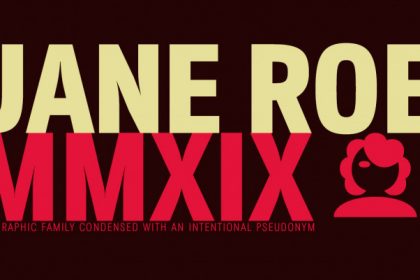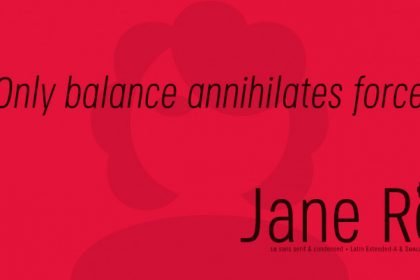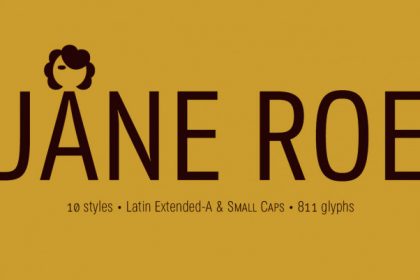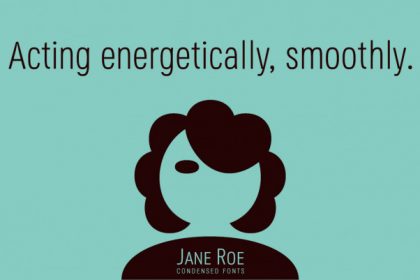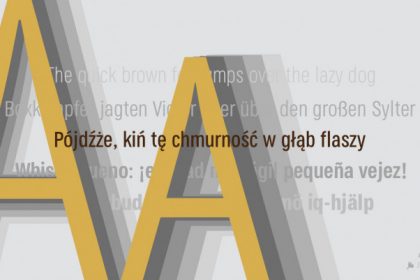
JANE ROE Sans & Condensed Fonts
Jane Roe is a family of 10 Sans Serif condensed fonts of geometric construction and neo-Gothic style, a friendly typography with maximum readability, specially drawn for the composition of texts of any size for both printing and screen, signage or headlines and where you need savings in horizontal space.
This typeface contrasts its neutral aspect with the humanistic modulation of the antlers in the characters, giving the opportunity to compose texts adaptable to any context and concept.